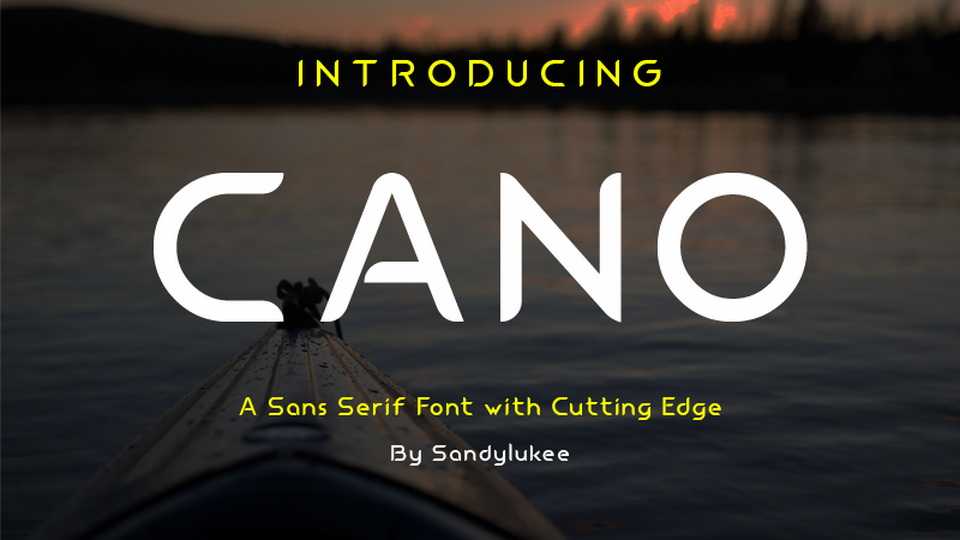
Download Cano font, a geometric sans serif with cutting edges designed to be used as a decorative headline typeface. Cano is also suitable for logo, posters and other display use.
Designer: Sandy Luke